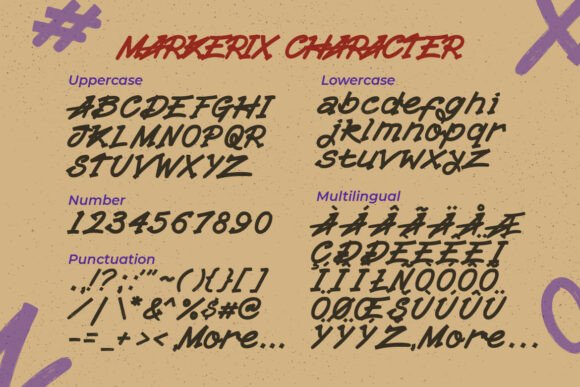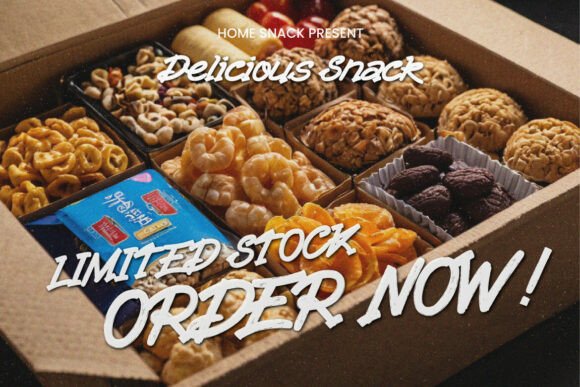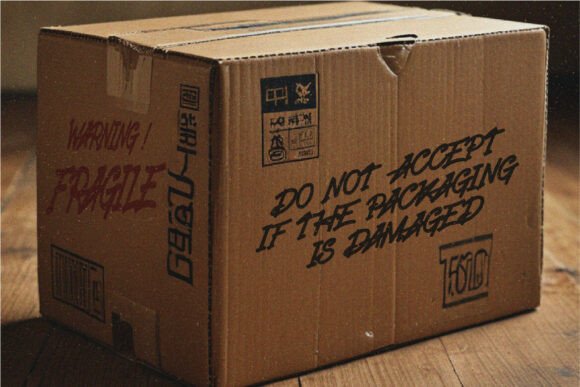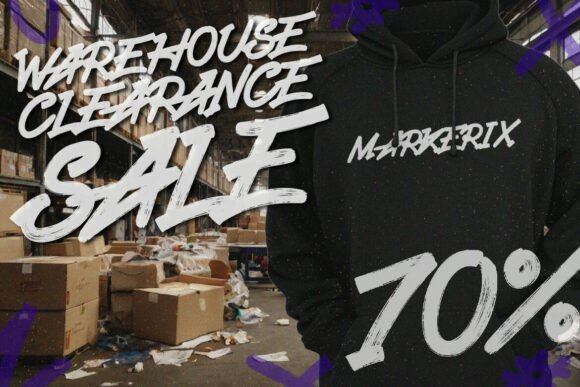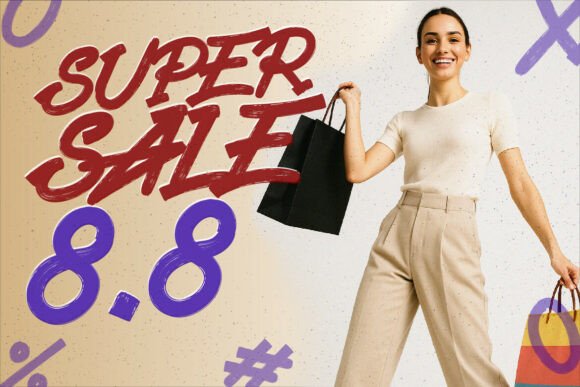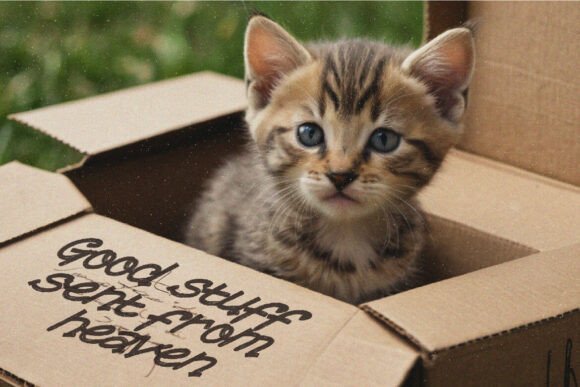
Introduction to Markerix Font
Have you ever stared at a blank canvas, waiting for the perfect spark to ignite your creative project? For many designers, this moment is a constant companion, a reminder that the right tool can make all the difference. This is where Markerix Font comes in – a lively fountain of creativity that adds an exuberant touch to any design.
With its raw, yet charming attributes, Markerix Font strikes the perfect balance between playfulness and elegance. Whether you’re working on a high-quality design resource or a free download, this versatile font is sure to elevate your project to new heights. As a valuable asset for designers, Markerix Font offers a unique flair that sets it apart from other design tools.
So why settle for ordinary when you can have extraordinary? Dive into the world of Markerix Font and discover a new dimension of creativity that will leave your designs feeling fresh and captivating.
Key Features of Markerix Font
- Unique and Creative Design: Markerix Font offers a distinctive and artistic design that’s perfect for creative projects, allowing users to add a personal touch to their work.
- Transparent Background Option: This versatile font includes a transparent background version, allowing users to easily layer it over other design elements or images.
- Customizable: The font’s unique design makes it highly customizable, allowing users to experiment with different colors, sizes, and effects to suit their creative project’s needs.
- Perfect for Digital and Print Projects: Markerix Font is suitable for a wide range of applications, including digital designs, prints, and even web graphics, thanks to its high-quality vector formats.
Honest Review: Markerix Font
I recently had the chance to work with the Markerix Font, and I’m excited to share my thoughts on this design resource. As a designer, I’m always on the lookout for high-quality fonts that can elevate my creative projects. The Markerix Font definitely delivers in terms of style and versatility.
Here are some things that work well with the Markerix Font:
- ✨ Its sleek, modern design makes it perfect for digital projects, including websites and mobile apps.
- ✨ The transparent background makes it easy to customize and layer over other design elements.
- ⚠️ The font is not as versatile for print projects, which may limit its use in certain design contexts.
- ⚠️ Some users may find the font too modern or trendy, which may not be suitable for all design styles.
Overall, I’m impressed with the Markerix Font and would definitely recommend it to designers working on creative projects that require a modern, high-quality font. With its sleek design and transparent background, it’s a great addition to any design resource library.
Tips and Use Cases
Some common use cases for Markerix Font include designing logos, creating infographics, and developing brand identities. To get the most out of Markerix Font, use it in conjunction with a transparent background to create a seamless design. You can also experiment with different font sizes and colors to add visual interest to your design.